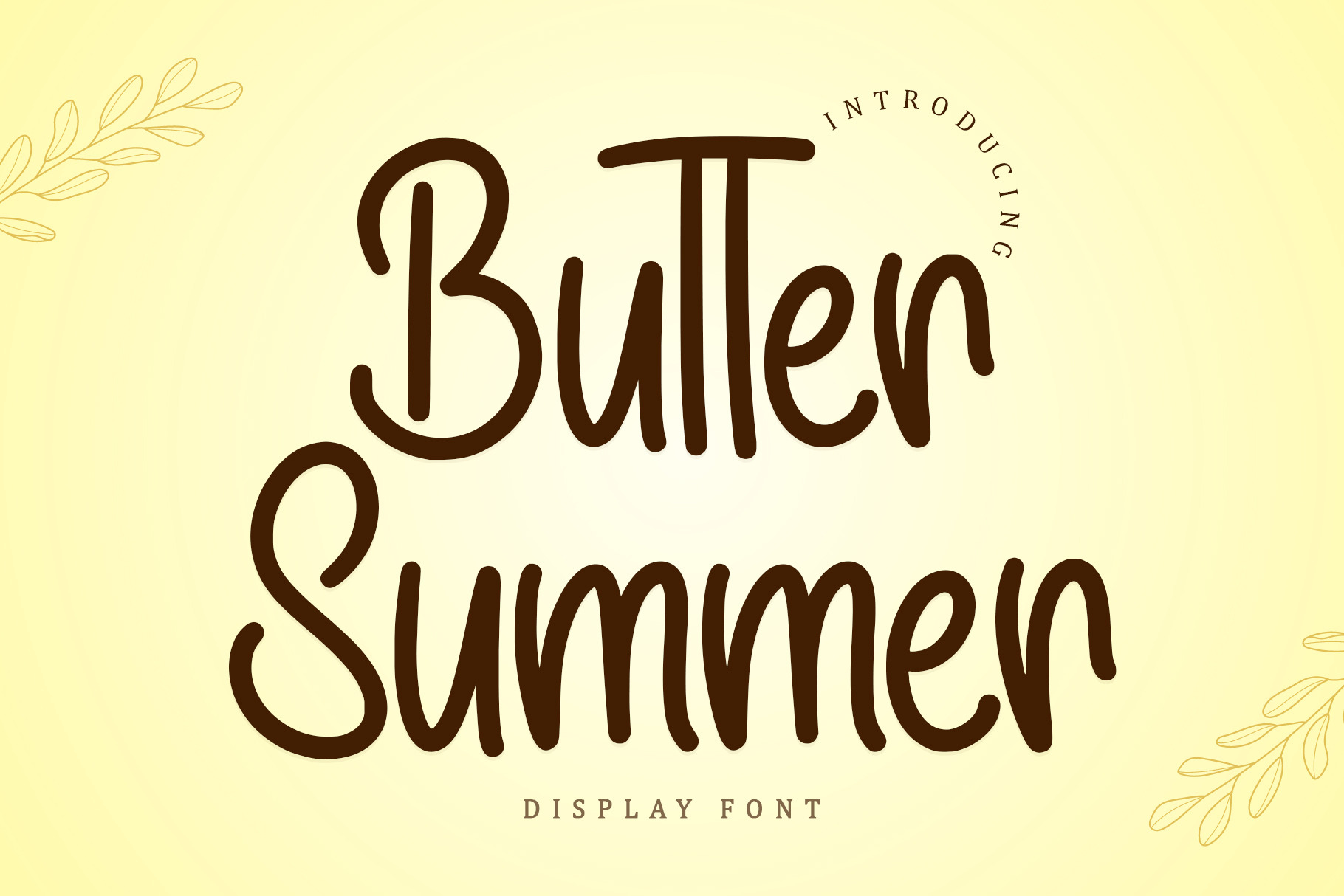
Butter Summer | Display Font
Cute, casual, and neat, Butter Summer is a handwritten font that is ready to take your designs to the next level. Not too thin and not too thick, balanced and varied, this font was designed to enhance the beauty of your projects.
- Support Multilingual; ä ö ü Ä Ö Ü ß ¿ ¡